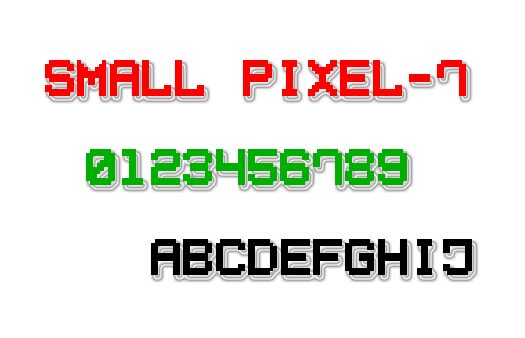
Small Pixel-7 by Style-7 is a free compact pixel font with tall, squared forms and the plainspoken look of early computer menus. Its open shapes keep the lettering light and orderly.
Small game interface mockups are its clearest setting, especially for status labels, score panels, and menu screens. The same restrained electronic manner also fits retro event posters, technology packaging, and merchandise aimed at arcade fans and computer nostalgia collectors.
Small Pixel-7 by Style-7 is a free pixel font.